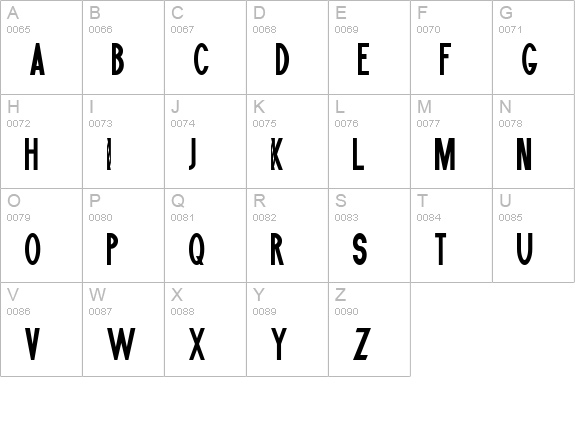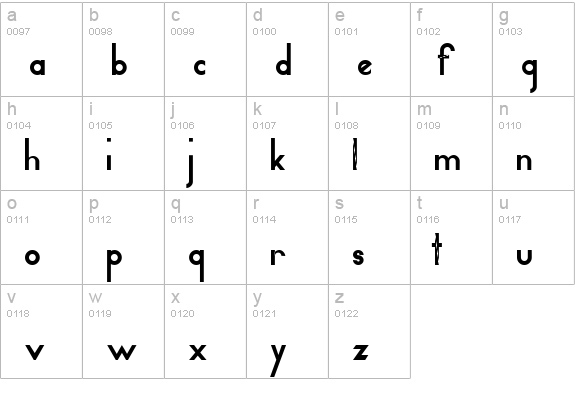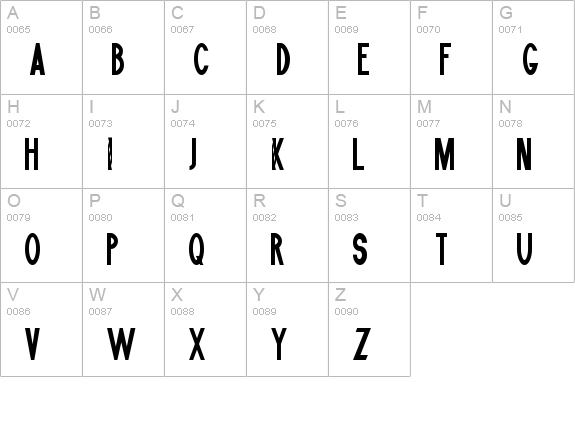
Zeppelin 2 Font Details
Zeppelin 2 font is a stunning display typeface that exudes elegance and sophistication. With its bold, clean lines and modern design, this font is perfect for creating eye-catching headlines, logos, and branding materials. The geometric shapes and sharp angles give Zeppelin 2 a contemporary feel that is sure to make your designs stand out. What's even better is that Zeppelin 2 font is available for free download at FontsMarket.com. Yes, you read that right - you can get your hands on this beautiful font without spending a dime. So why wait? Head over to FontsMarket.com now and add Zeppelin 2 to your font collection today!